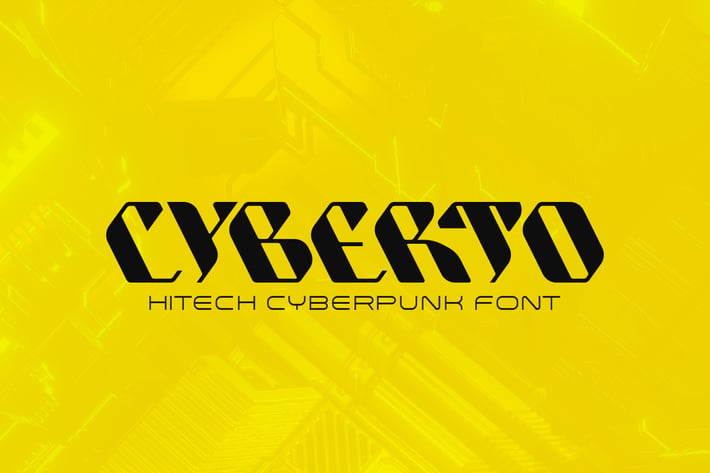
Cyberto Font
CYBERTO is font family which helping to create futuristic hi-tech and cyberpunk atmosphere and style.
It is good looking as header and as text both.
Use it in your projects in such areas as robots&androids, cyberpunk, hi-tech, future, virtual reality, space, army, games and many others.
Family consists of three types:
- Regular
- Light